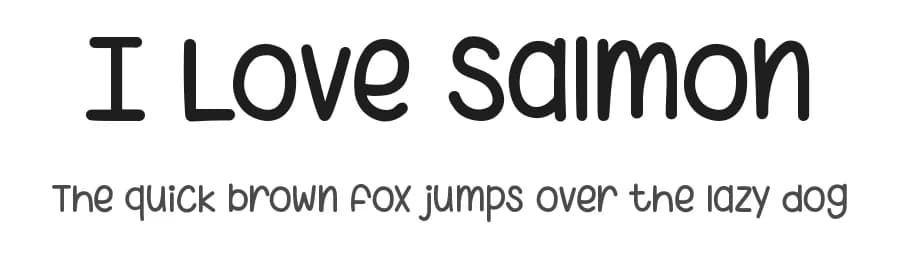
About I Love Salmon Font
I Love Salmon is a script & handwritten font designed by AquariiD. It includes 112 glyphs, a regular weight, TTF (TrueType) format, and 197 languages. I Love Salmon is free to download; check the license details on this page before commercial use. Script & handwritten fonts like I Love Salmon work best for wedding invitations, greeting cards, signatures, and elegant branding.
I Love Salmon Font is a script font that shines as a display or heading face. Pair it with a clean sans-serif or serif font for body text β the contrast creates a clear hierarchy while the two styles stay balanced and easy to read.
I Love Salmon Font